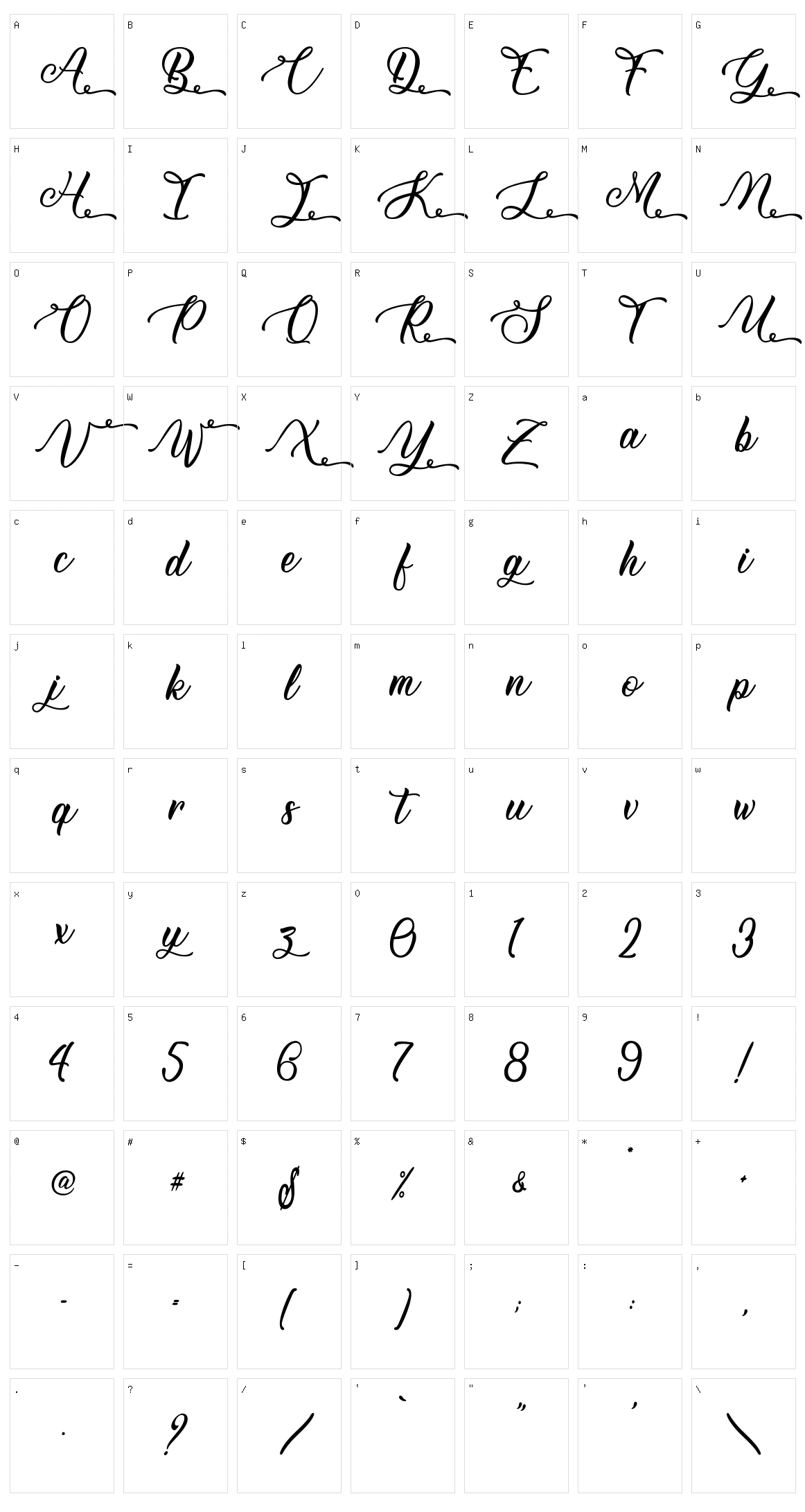
The free font Betty Molly is carefully designed by Typhoon Type? - Suthi Srisopha, showcasing a thoughtful balance of creativity and usability and falls under the Script font style. When you download the ZIP file, it contains only 149.49 KB of font files, making it lightweight and quick to download. Please review the license details below to understand permitted usage and distribution rights. If license information is not available, we recommend using this font for personal projects only or contacting the author directly for commercial usage permissions.